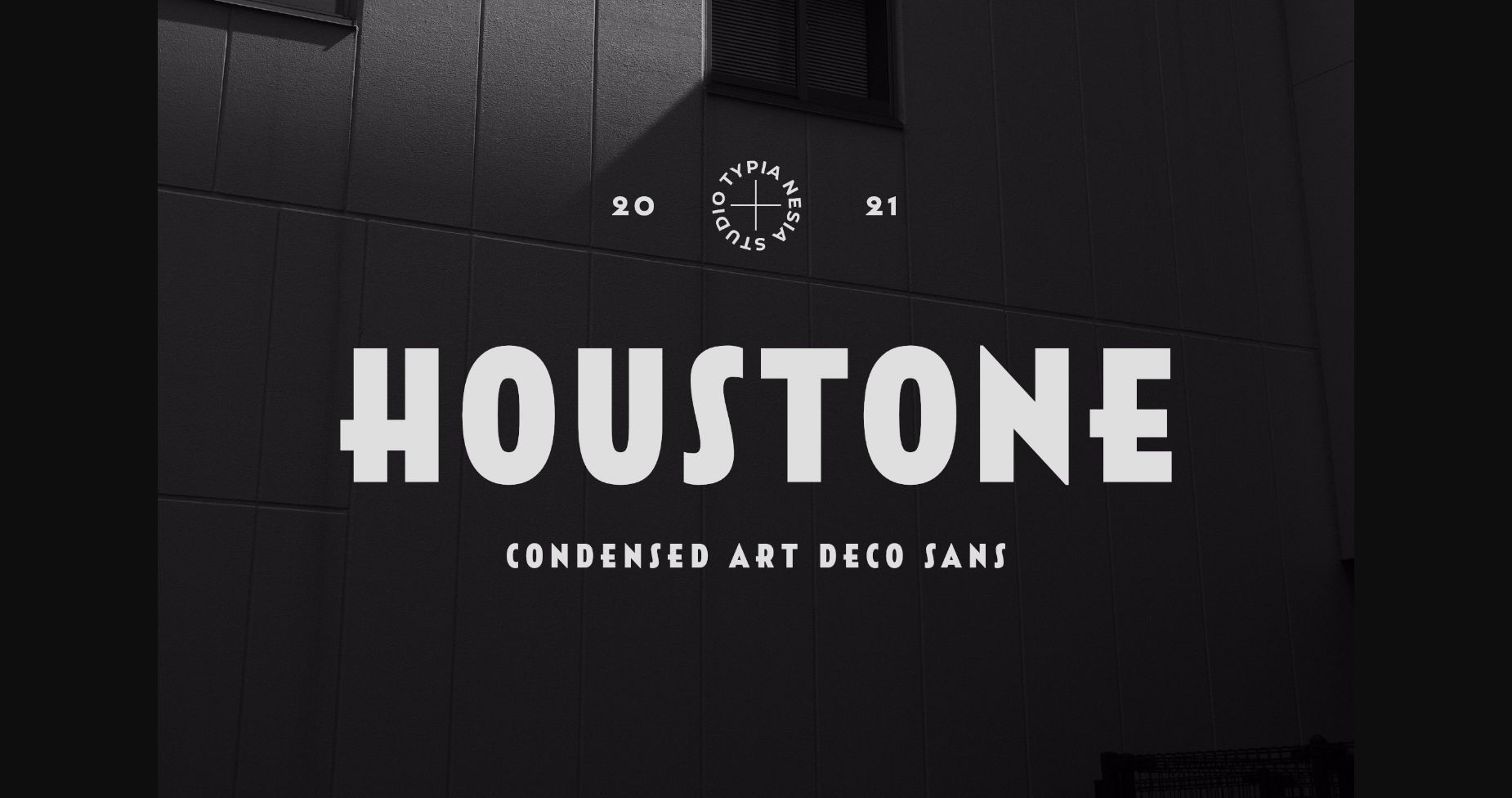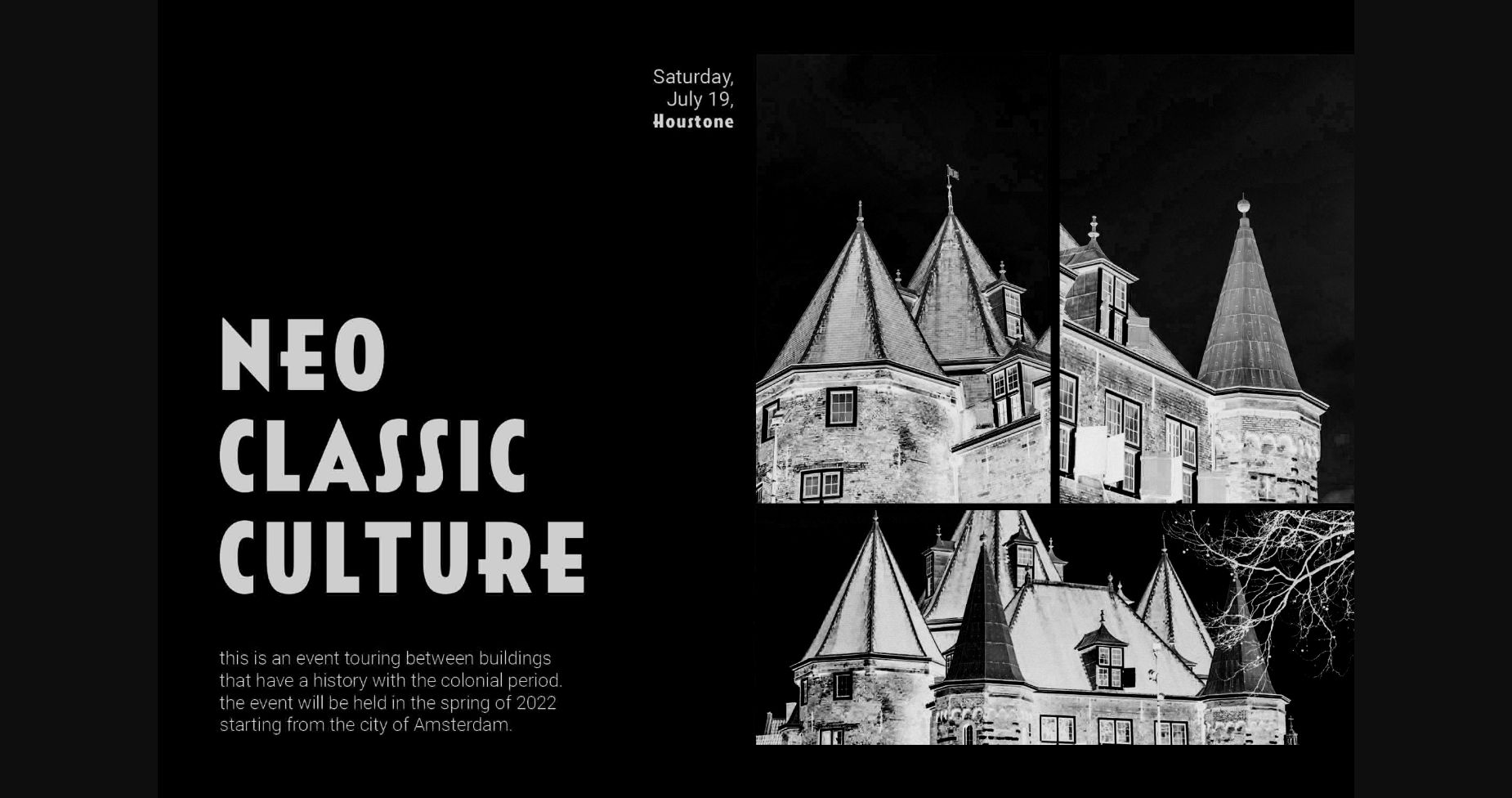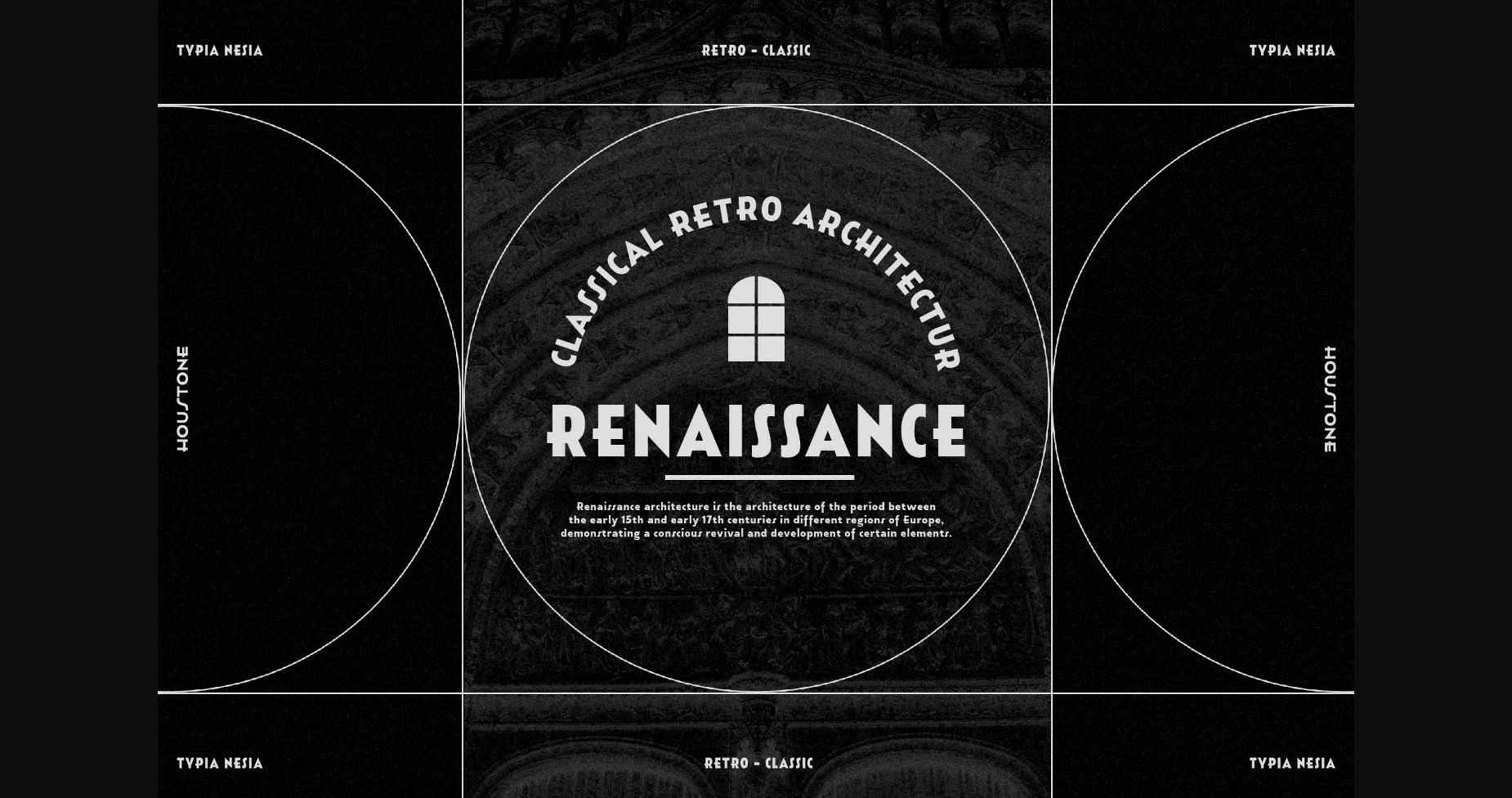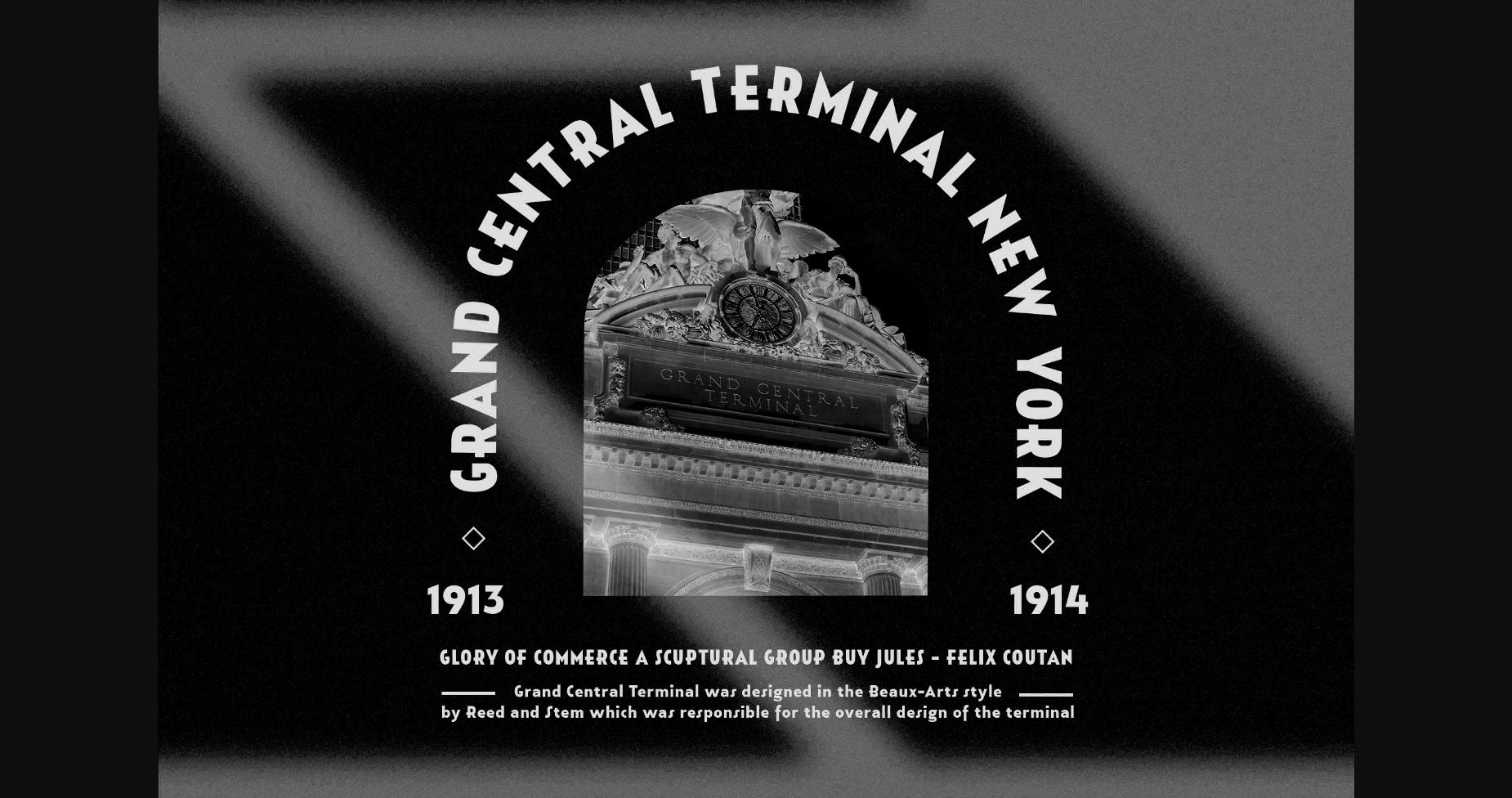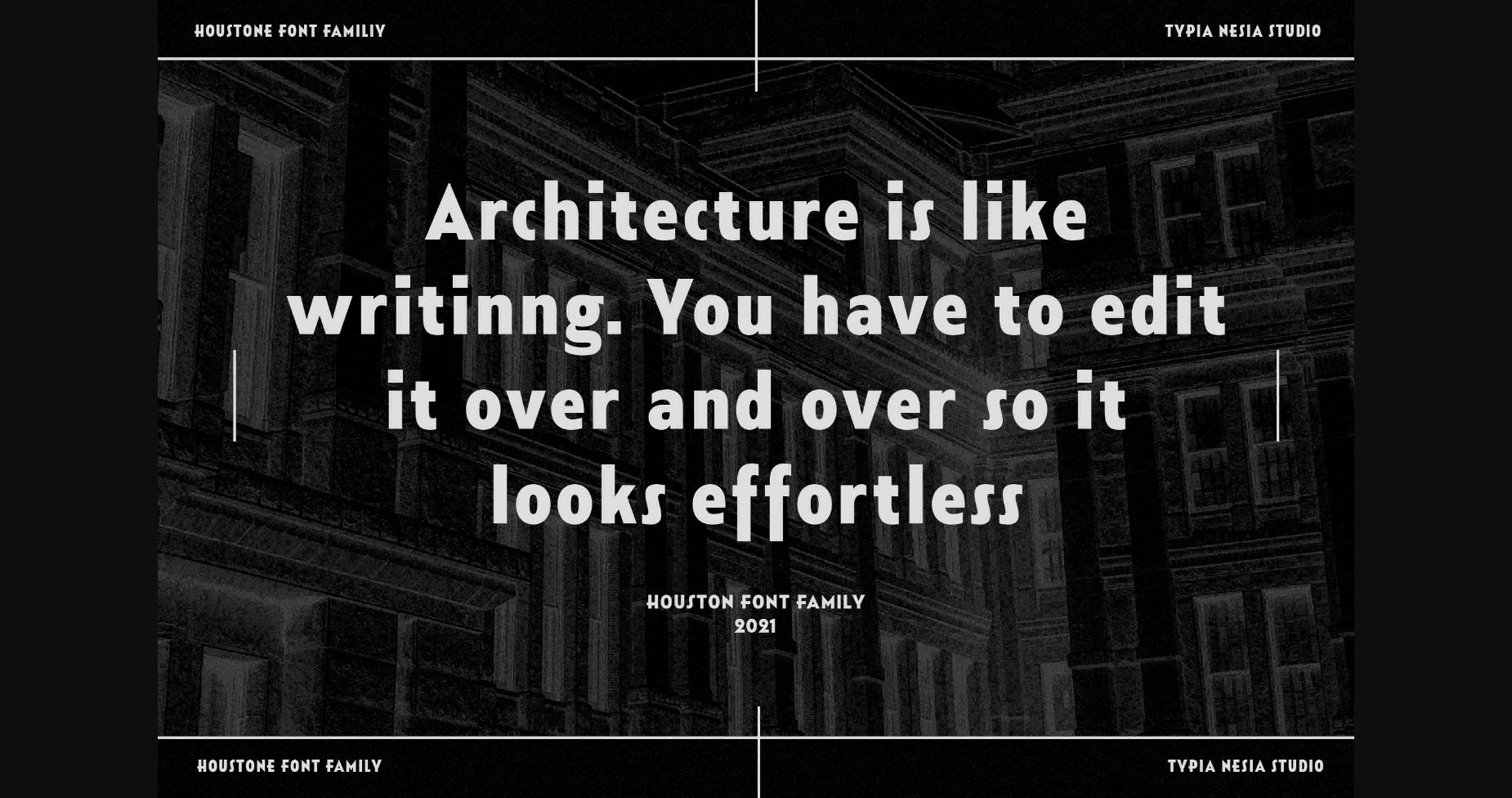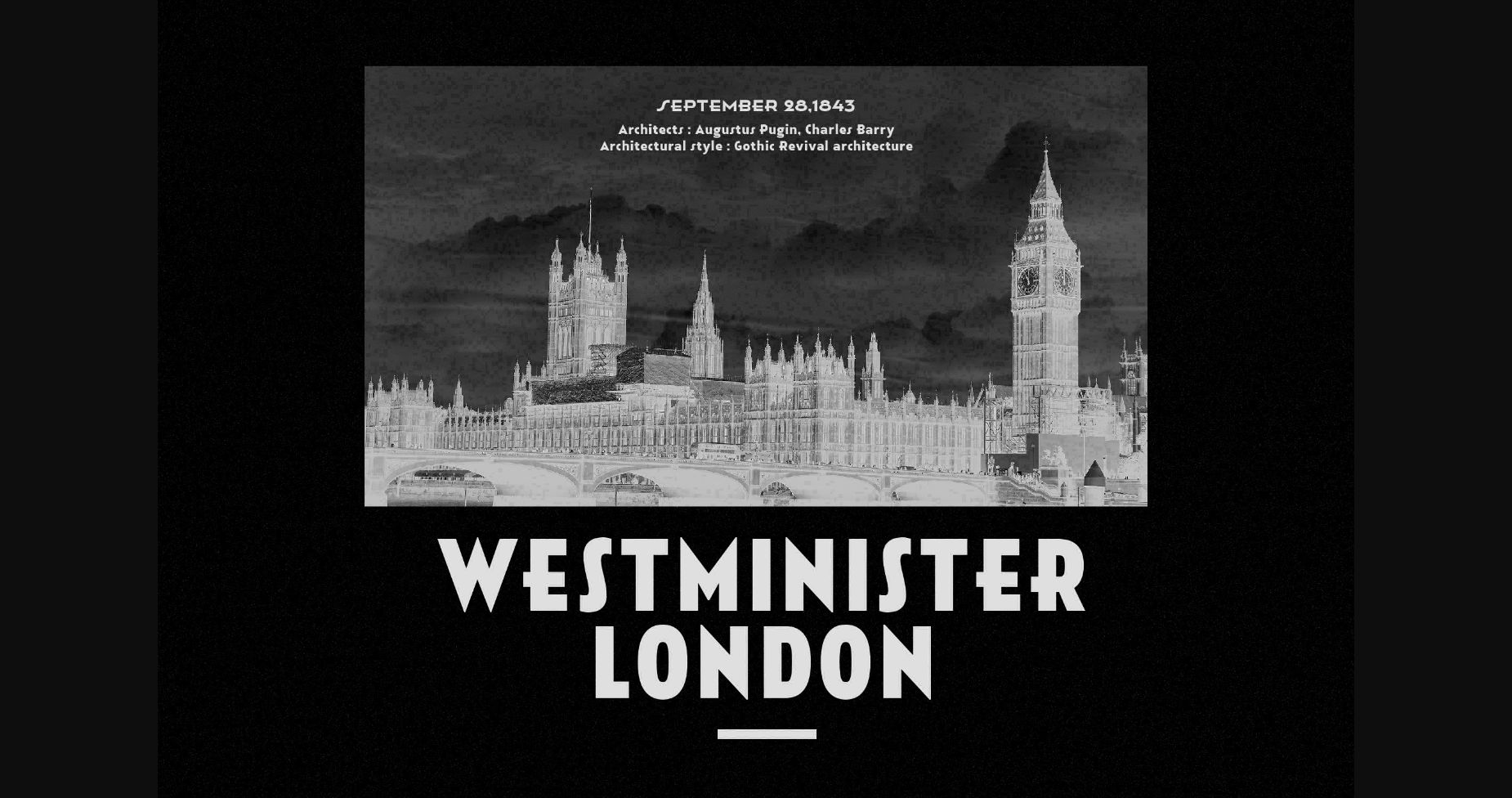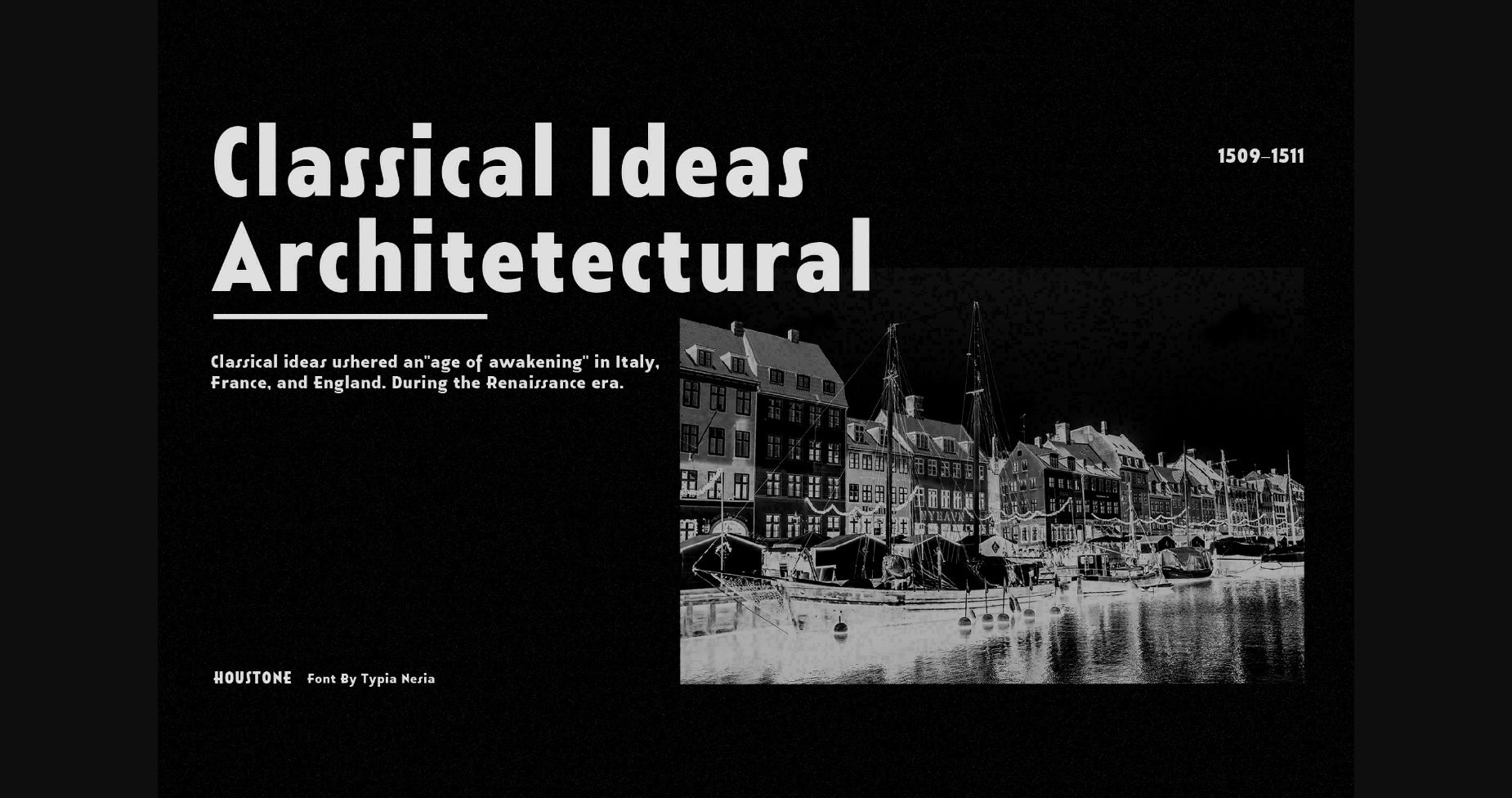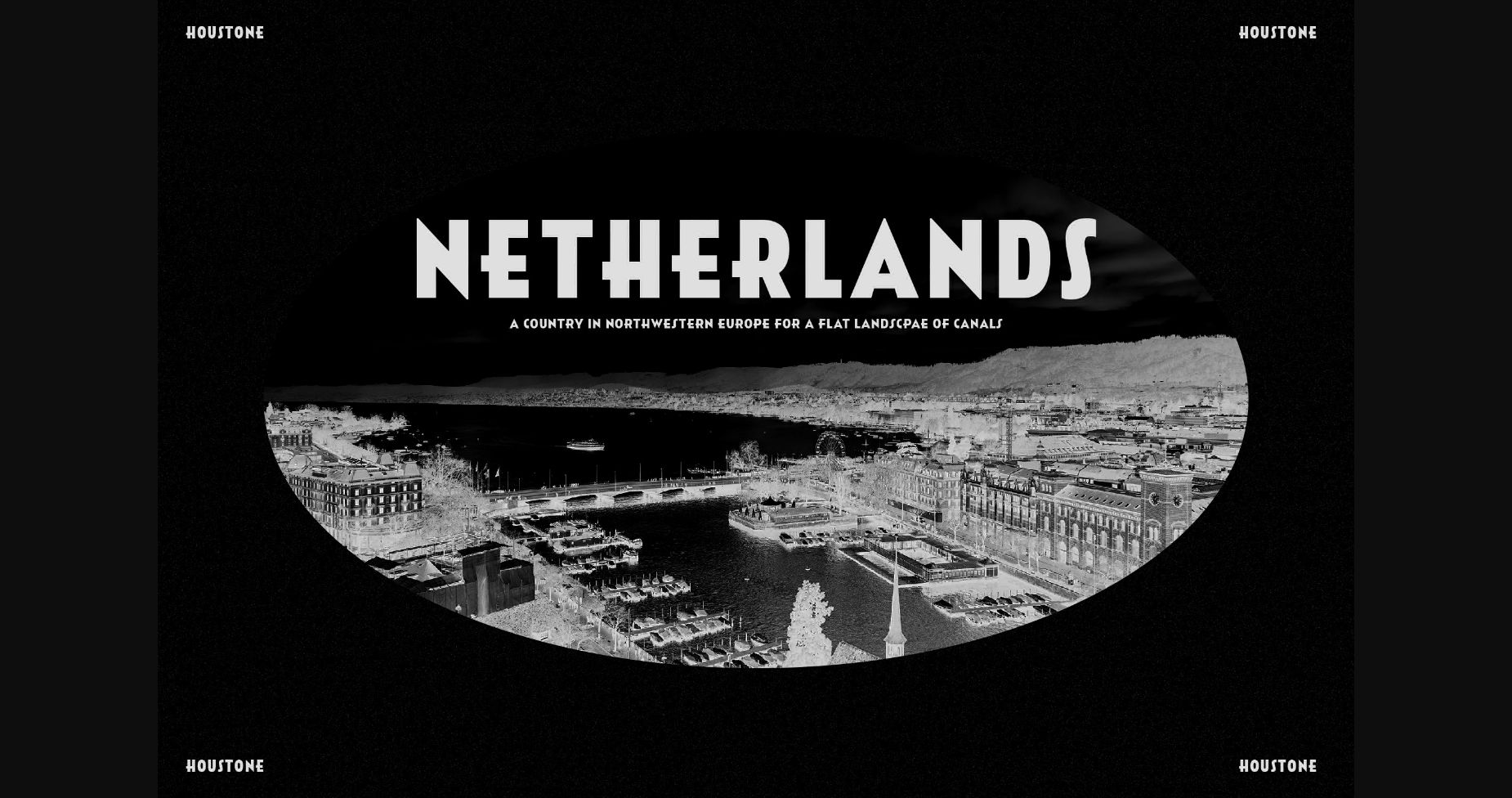
Houstone Font
About Houstone Font
Houstone is a clean, thick lettered and assertive sans serif font. This font reads as strong, confident, and dynamic and can add tons of stylish character to your designs.